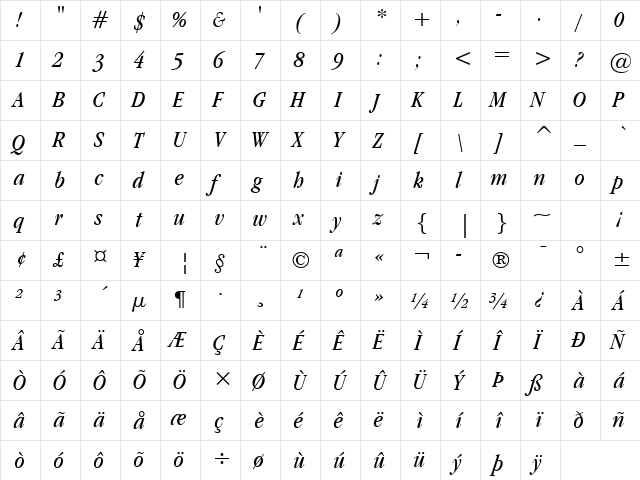
GarmdITC BkCn BT Book Italic Font Preview
GarmdITC BkCn BT Book Italic
GarmdITC BkCn BT Book Italic Font Details
| Style | Book Italic |
Design Context for GarmdITC BkCn BT Typeface
GarmdITC BkCn BT takes a measured approach to typography — its balanced proportions and neutral character make it a reliable workhorse for both digital and print work. Its italic angle brings a sense of urgency and motion to the letterforms.
Pro Tip: Use GarmdITC BkCn BT for emphasis, pull quotes, and subheadings where its slanted energy can add rhythm to the layout.